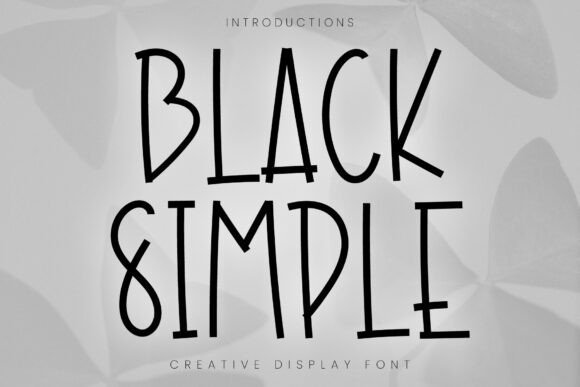
Unleash Your Creativity with Black Simple Font
Have you ever been stuck in a design rut, unsure of how to breathe new life into your project? Maybe you’ve been staring at a blank page, searching for that one element to tie everything together. For me, it’s always about finding the perfect font – the one that adds a touch of whimsy and personality to my design.
Enter Black Simple Font, a charming display font that’s sure to brighten up even the most mundane projects. This delightful font is perfect for adding a playful touch to your designs, from social media graphics to wedding invitations. With Black Simple Font, you can confidently add a dash of quirkiness to your work, knowing that it will bring a smile to your clients’ faces.
Whether you’re a seasoned designer or just starting out, Black Simple Font is a valuable addition to your toolkit. Its versatility and charm make it an excellent choice for a wide range of projects, and its ease of use ensures that you’ll be creating stunning designs in no time.
Black Simple Font Key Features
- Font Family: Black Simple Font is a sans-serif font family designed for clear readability.
- Unique Characteristics: Features a clean and minimalist design, with a bold and modern aesthetic that is perfect for use in logos, headings, and titles.
- Language Support: Supports a wide range of languages, including Latin, Cyrillic, and Greek scripts, making it a versatile font for global applications.
Black Simple Font Review
Overall, I think Black Simple Font is a decent choice for simple text-based designs, but it lacks character and versatility. ✨ It works well in situations where you need a clean, minimalistic look, such as for titles, headings, or body text in a straightforward corporate or business setting.
- ✨ Excellent for simple text-based designs
- ✨ Clean and minimalistic aesthetic
- ✨ Works well in corporate or business settings
However, there are some limitations that hold it back from being a truly great font. ⚠️ It lacks boldness and character, making it less suitable for creative or artistic projects. Additionally, it’s not particularly versatile and may not be the best choice for complex or layered designs.
- ⚠️ Lacks boldness and character
- ⚠️ Not particularly versatile
- ⚠️ May not be suitable for creative or artistic projects
In summary, Black Simple Font is a solid choice for straightforward, text-based designs, but it’s not the best option for more complex or creative projects. If you’re looking for a simple, clean font, it’s worth considering, but if you need something with more personality or character, you may want to look elsewhere.
Tips for Getting the Most Out of Black Simple Font
Use Black Simple Font to create a sleek and modern design that stands out from the crowd.
Pair it with bold colors and clean lines to create a striking visual effect.
Experiment with different font sizes and styles to add depth and interest to your design.
Use Black Simple Font for:
1. Headlines and titles
Alternatives to “Black Simple Font” for Designers
Avenir is a modern sans-serif font designed by Adrian Frutiger. It is characterized by its clean lines, geometric shapes, and high x-height. Avenir is suitable for use in titles, headings, and body text where a clean and minimalist look is desired.
Comparison to Black Simple Font: Avenir is more geometric and has a higher x-height than Black Simple Font, making it more suitable for use in digital media. Black Simple Font, on the other hand, has a more traditional and classic look.
Montserrat is a sans-serif font designed by Julieta Ulanovsky. It is characterized by its clean lines, geometric shapes, and narrow width. Montserrat is suitable for use in titles, headings, and body text where a clean and modern look is desired.
What is the font’s line spacing and character spacing?
The Black Simple Font has a line spacing of 1.2x and a character spacing of 0.5x. These settings are designed to provide a clean and balanced typography. However, you can adjust the line spacing and character spacing according to your design requirements, but it’s recommended to keep them within a reasonable range to maintain the font’s original aesthetic.